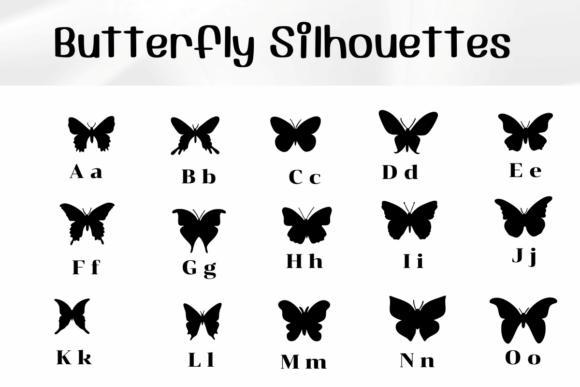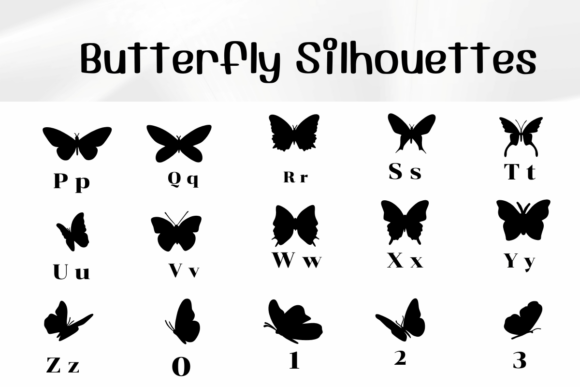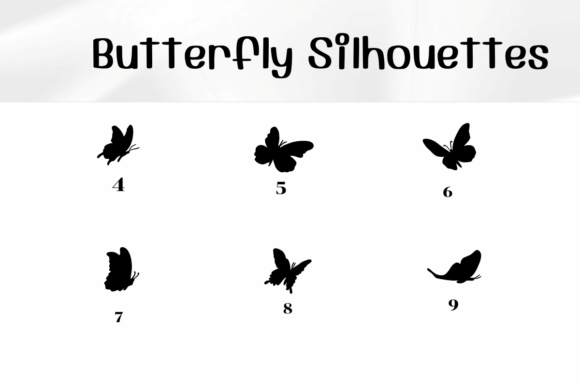
Butterfly Silhouettes Font
Butterfly Silhouettes is a dingbats font with a gorgeous theme. This font can enhance your creative projects such as wedding invitations, DIY, crafts, decorations, logos, and many other creative ideas.